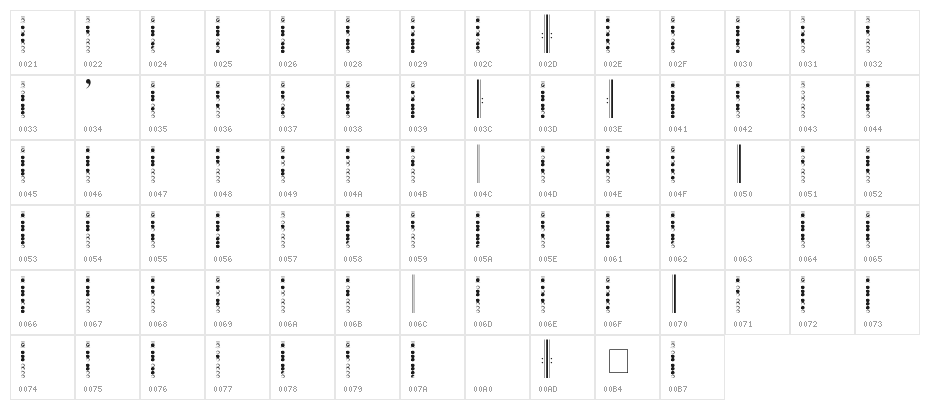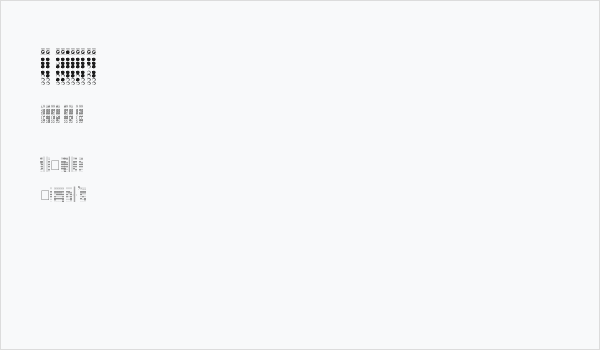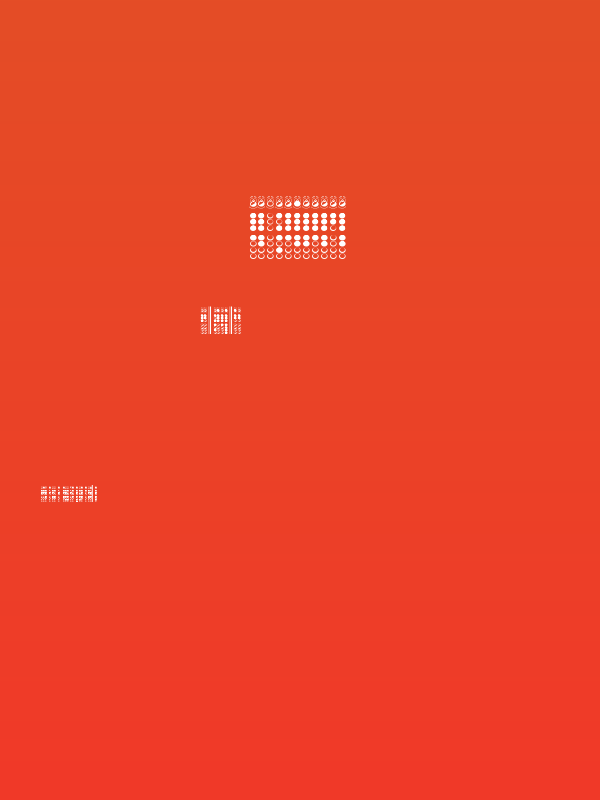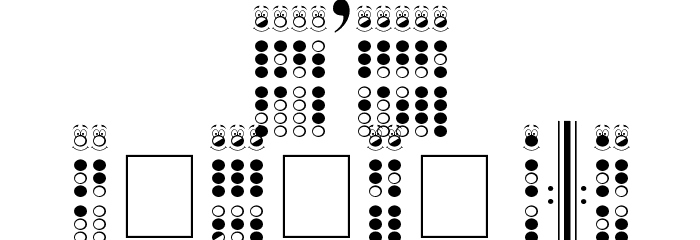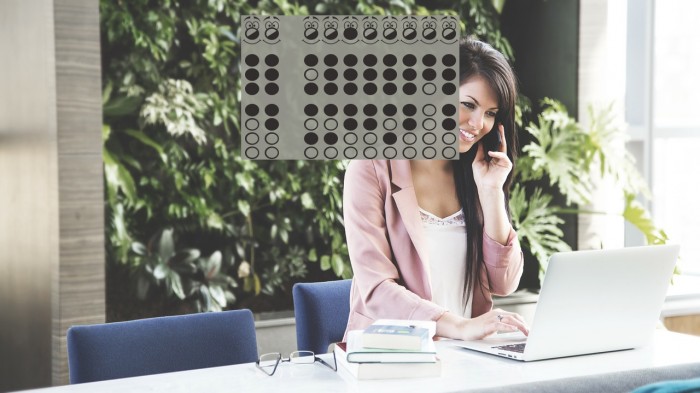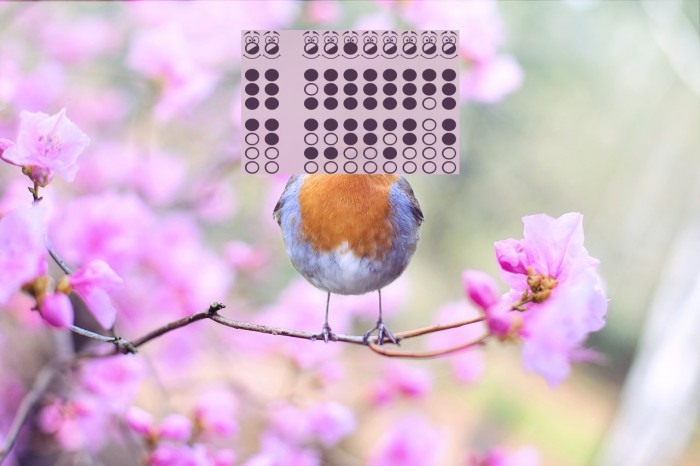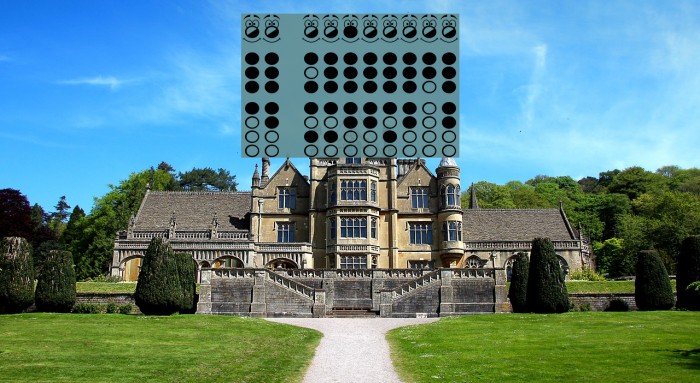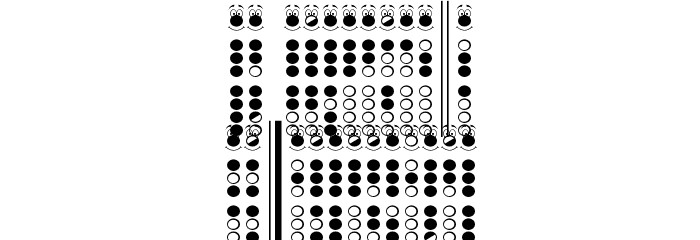
RecorderEye Font
RecorderEye Description
A highly decorative and playful font composed of bold, circular dots and whimsical cartoon-like faces, with some characters enclosed in boxes and others featuring vertical lines or unique embellishments. The letterforms are abstract and experimental, prioritizing visual interest over legibility.
| Overall Style | Decorative, Playful, Experimental |
| Use Case | Logos, Posters, Display titles, Children's materials |
| Proposed Projects | Children's books, party invitations, playful branding, posters, experimental art projects. |